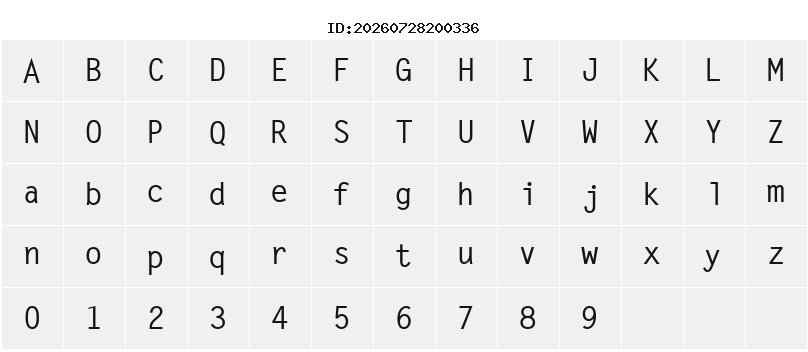
Microfine SSi Preview
• Font Name: Microfine SSi
• Full Font Name: Microfine SSi Bold
About Microfine SSi.ttf
Microfine SSi.ttf is a modern, elegant sans-serif font designed for ultimate readability and visual harmony. Perfect for branding, headlines, web design, and print materials.